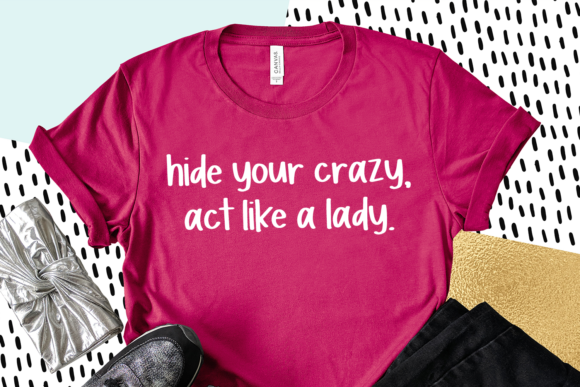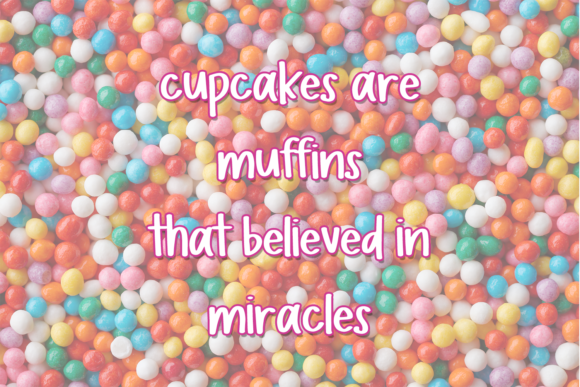
Candy Queen Font
db-ku.com - Script & Handwritten -- Candy Queen is a sweet and friendly handwritten font. Its natural and unique style makes it incredibly fitting to a large pool of designs. The only limit is your imagination!